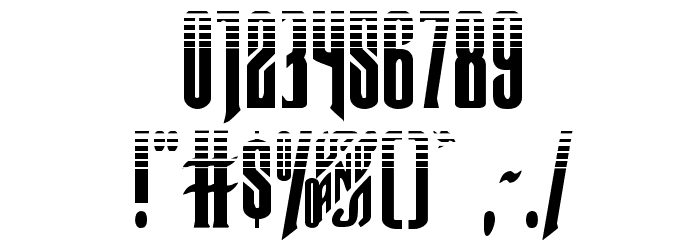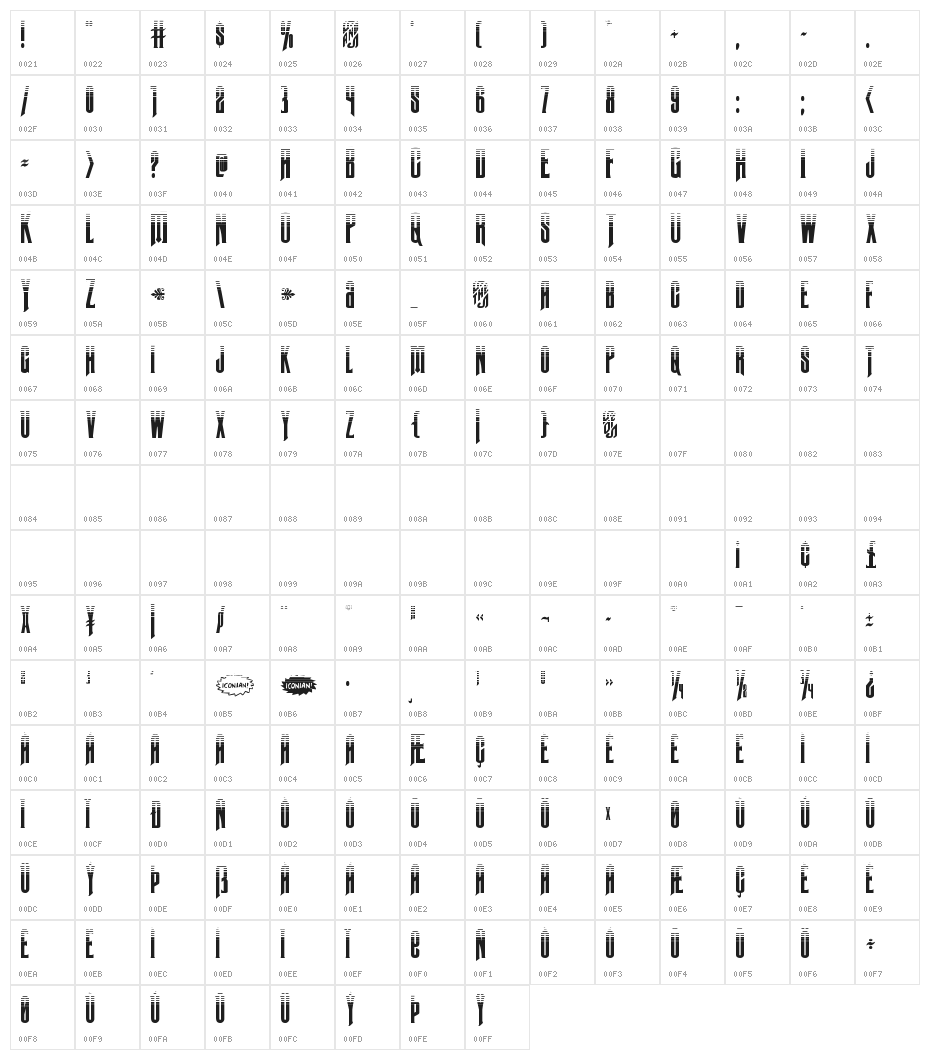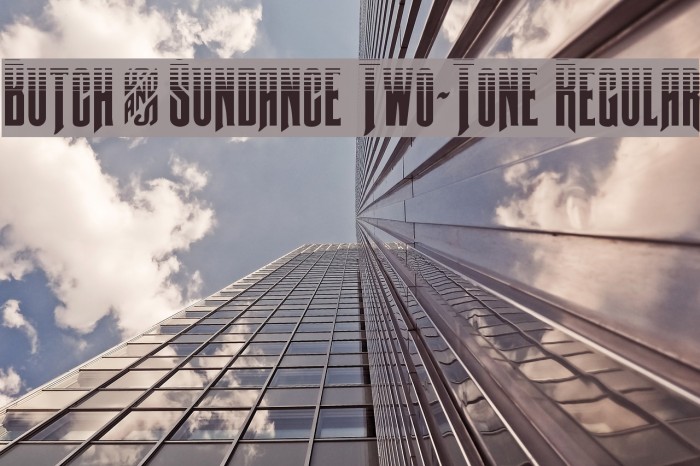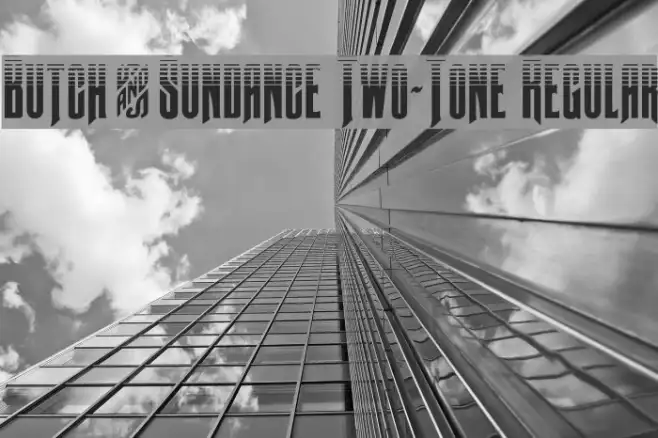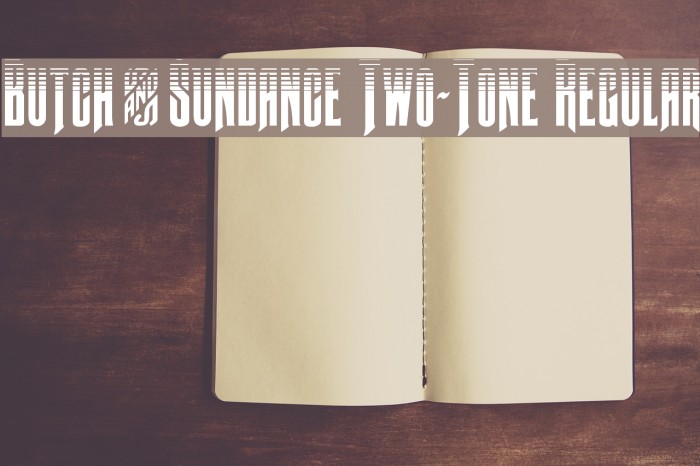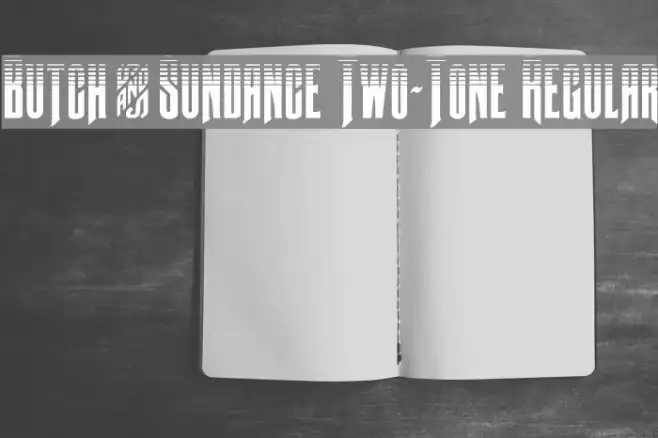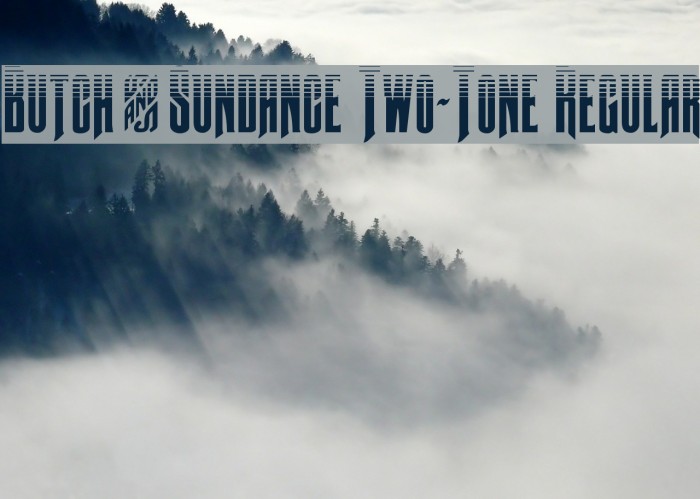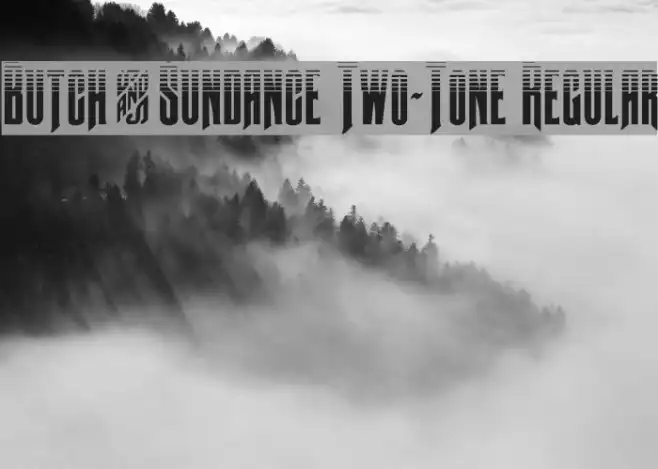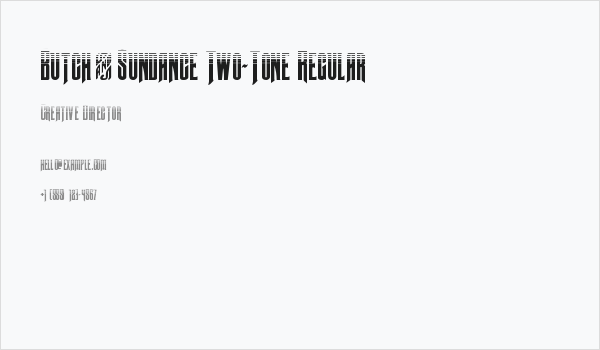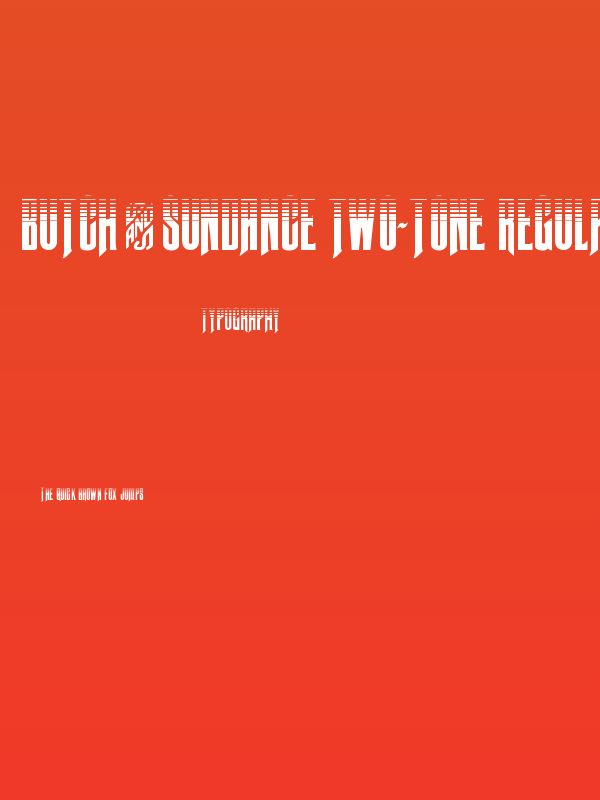
Butch & Sundance Two-Tone Regular Font
Butch & Sundance Two-Tone Regular Description
This font features a bold, striking design with a two-tone effect that creates a sense of depth and movement. The uppercase letters are tall and narrow, with sharp angles and a unique striped pattern that adds a dynamic visual interest. The lowercase letters maintain the same boldness and angularity, ensuring consistency throughout the typeface. Numbers and special characters are designed with the same attention to detail, making them stand out with their bold presence. The overall style is modern and decorative, making it suitable for eye-catching designs.